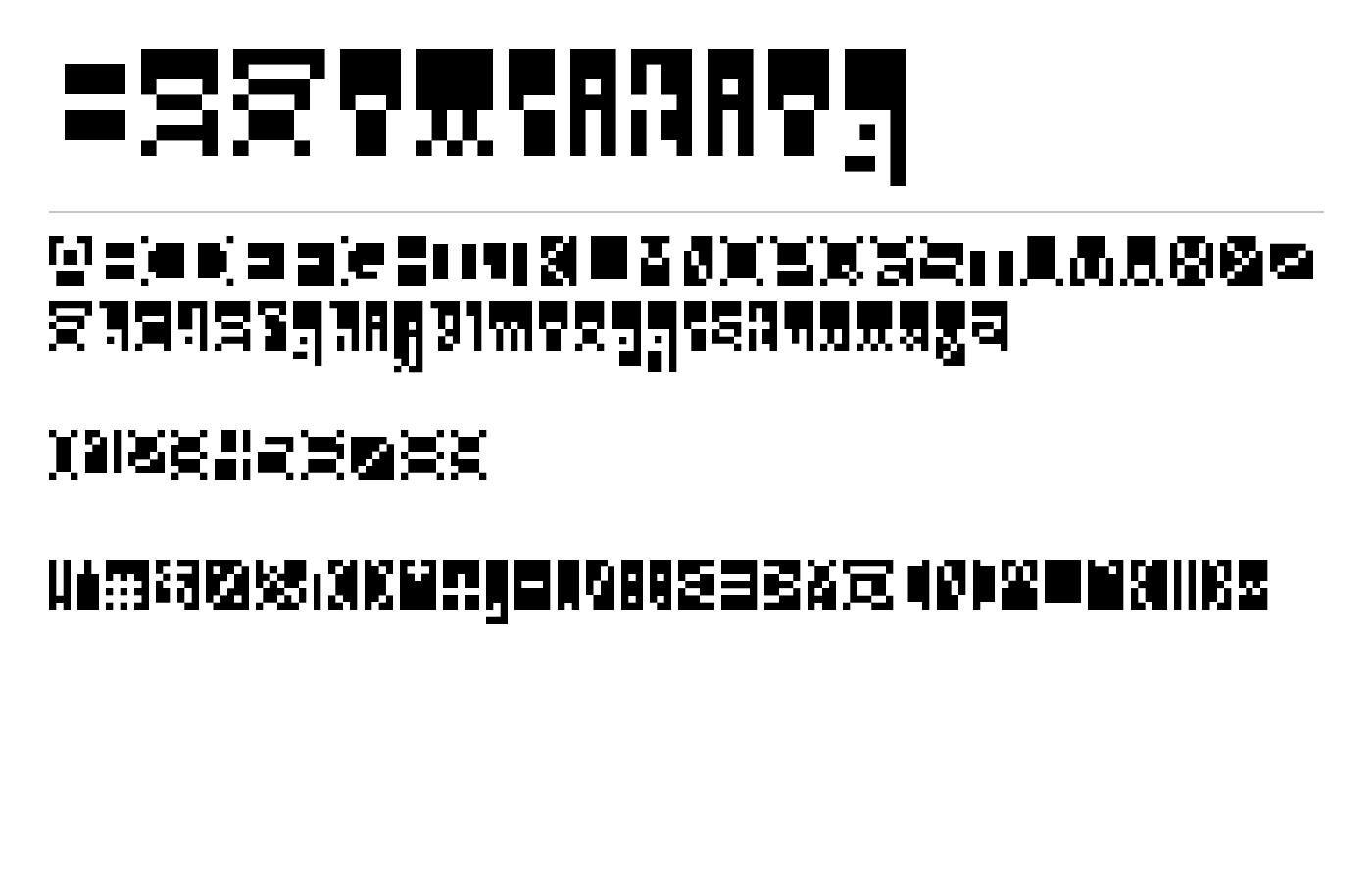
Beanwriting is a highly stylized pixel or bitmap-inspired sans serif font characterized by its blocky, geometric shapes and uniform stroke weight. Its compact, square letterforms and minimal contrast give it a digital, retro-futuristic feel, making it ideal for tech-themed designs, video game graphics, or creative projects that want to evoke a pixel-art aesthetic. Beanwriting works best in display use where a bold, edgy atmosphere is desired rather than in body text due to its low readability at small sizes.
Beanwriting Font
About Beanwriting Font
| Font family | Beanwriting Font |
| Designer | Bean626 |